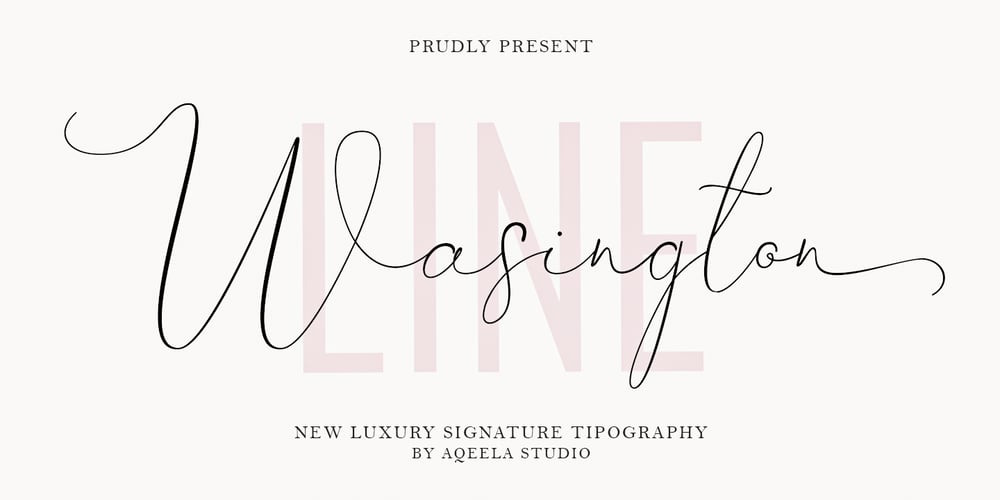
Line Washington Font Family was designed by Muhammad Nasir and published by Aqeela Studio. Line Washington contains 1 styles and family package options. Line Washington is a thin and elegant handwritten font. Fall in love with its incredibly versatile style and use it to create gorgeous wedding invitations, beautiful stationary art, eye-catching social media posts and more!This font is PUA encoded which means you can access all the glyphs and sweeps easily!